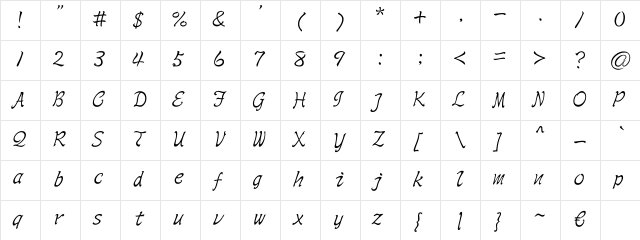
AR Script2 Medium Regular Font Preview
AR Script2 Medium Regular
Design Context for AR Script2 Medium Typeface
AR Script2 Medium flows with the natural rhythm of handwritten lettering, making it ideal for designs that call for warmth and personal expression.
Font Pairing: Combine AR Script2 Medium with a simple geometric sans for maximum contrast — the tension between flowing curves and clean structure is a classic typographic pairing.
Pro Tip: Pair AR Script2 Medium with a clean sans-serif for supporting text. The contrast between fluid script and geometric structure creates an elegant typographic hierarchy.